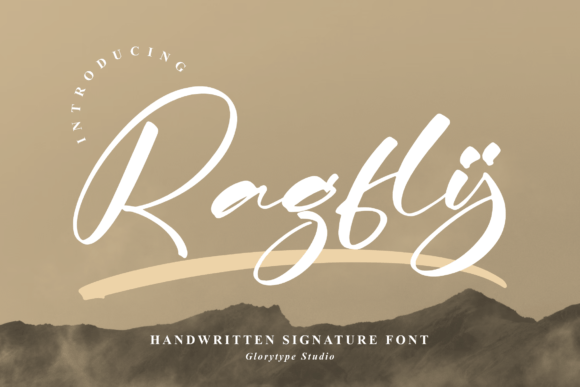
Introducing Ragflij: The Ultimate Handcrafted Font for Unforgettable Designs
In the realm of creativity, where words dance and visual artistry takes center stage, lies a font that captivates the senses like no other - Ragflij. This extraordinary script font is a testament to the boundless imagination of the human spirit, crafted with meticulous care by the visionary artists at Glorytype Studio.
Ragflij's beauty lies in its intricate details and fluid strokes, each resembling a graceful brush dance across the canvas. Its organic curves and playful flourishes imbue a touch of timeless elegance to any design, effortlessly capturing the viewer's attention and leaving an unforgettable impression.
Whether you're creating heartfelt wedding invitations, extending gratitude with personalized thank you cards, or crafting eye-catching logos that speak volumes, Ragflij is your trusted companion. This versatile font adapts seamlessly to a myriad of design styles, adding a touch of sophistication and charm to every project you undertake.
With Ragflij, you'll discover a font that breathes life into your creations, transforming ordinary words into captivating stories that resonate with your audience. Its enchanting characters possess an intrinsic charm that captivates and entices, urging readers to delve deeper into the world you've so meticulously crafted.
Gone are the days of monotonous and uninspired fonts. With Ragflij, you unlock a gateway to a world of creative possibilities, where your designs take flight, leaving an indelible mark on the hearts and minds of those who behold them. Embrace the power of Ragflij and watch as your designs transcend the ordinary, becoming extraordinary works of art that leave a lasting legacy.